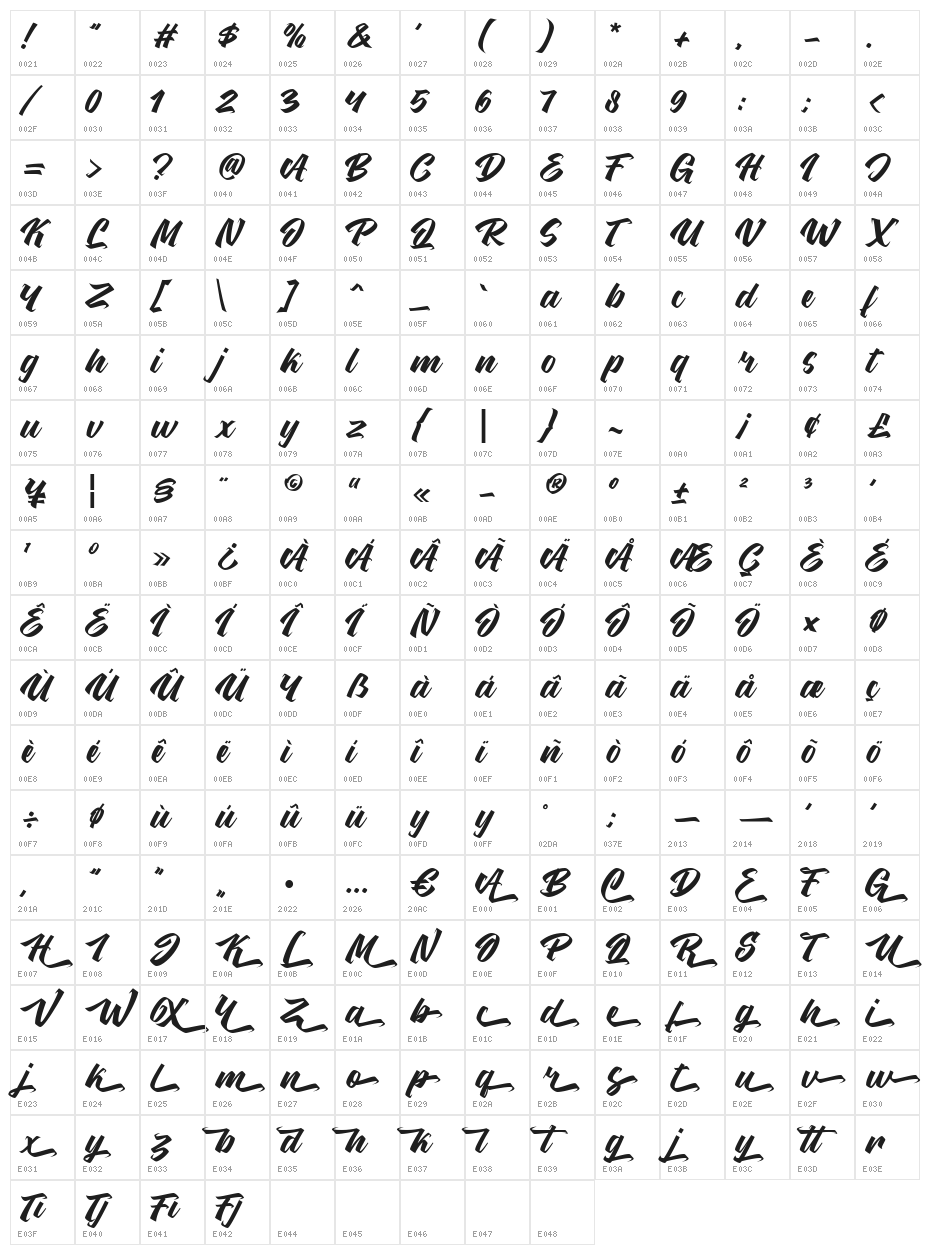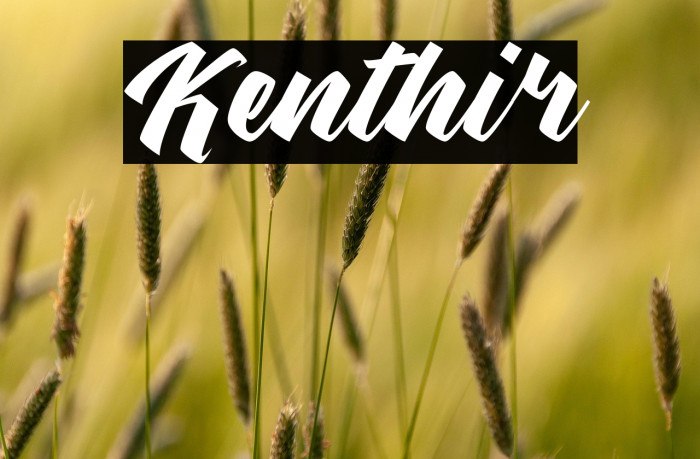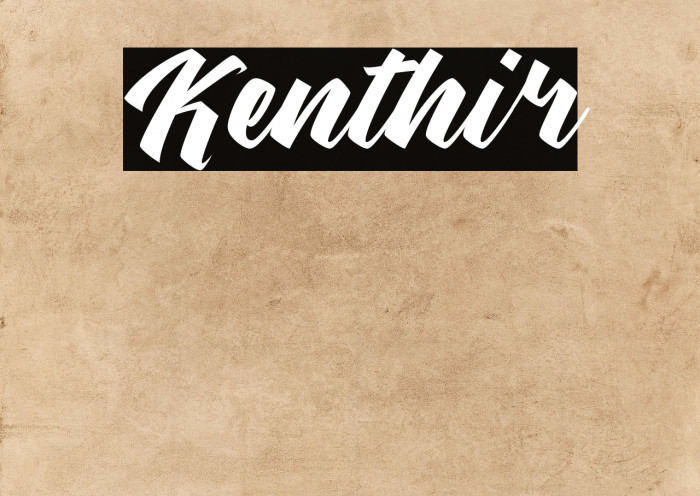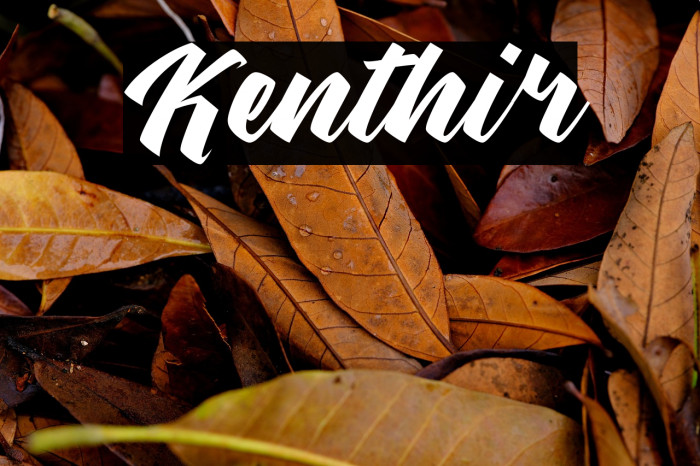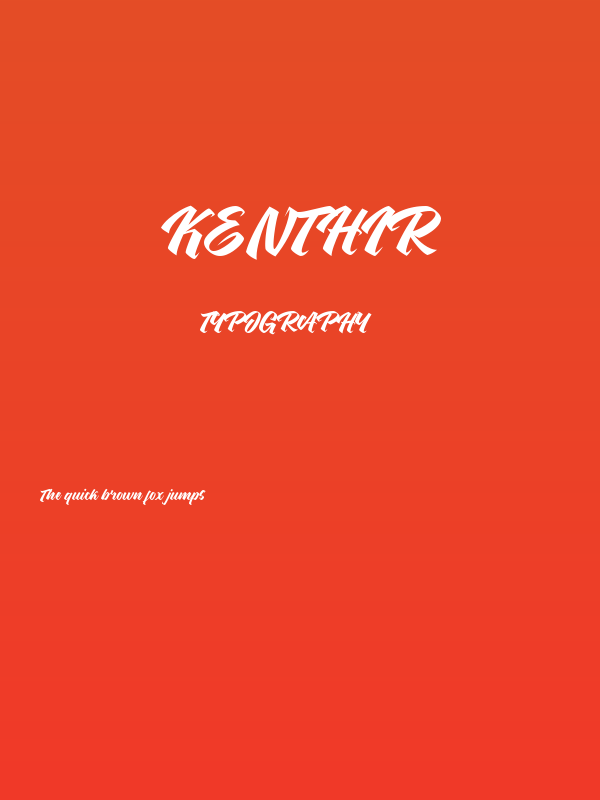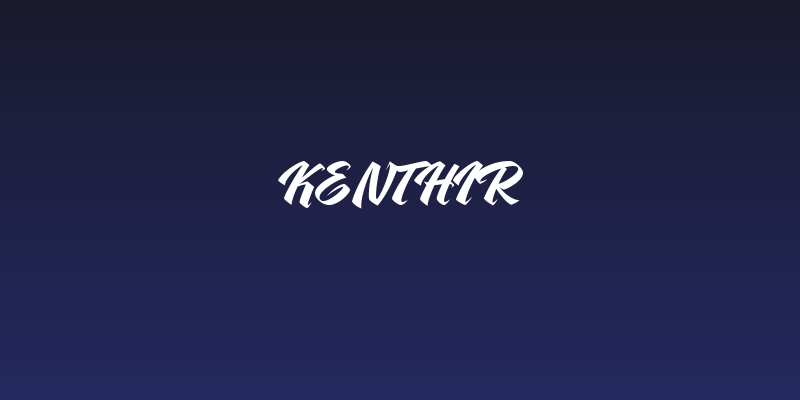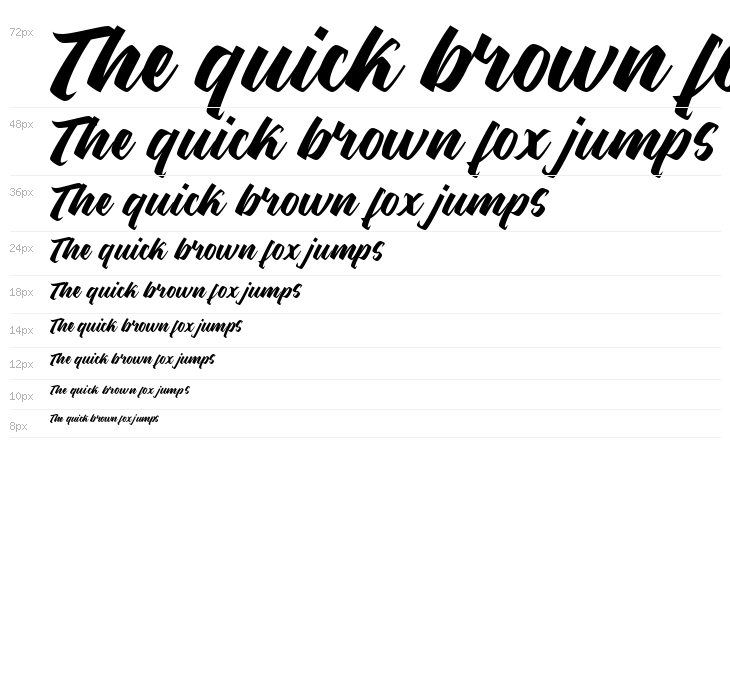
Kenthir Font
Kenthir Description
This font exhibits a bold and dynamic script style, characterized by its fluid and connected strokes. The letters have a slight slant, giving them a sense of motion and energy. The uppercase letters are prominent and commanding, while the lowercase letters maintain a consistent flow, enhancing readability. The numerals are well-integrated with the overall design, maintaining the same boldness and style. Special characters are crafted with the same attention to detail, ensuring they complement the alphabetic characters seamlessly. This font's bold presence makes it ideal for impactful designs.
| Proposed Projects | Ideal for branding, logos, headlines, and posters where a strong, energetic presence is desired. |